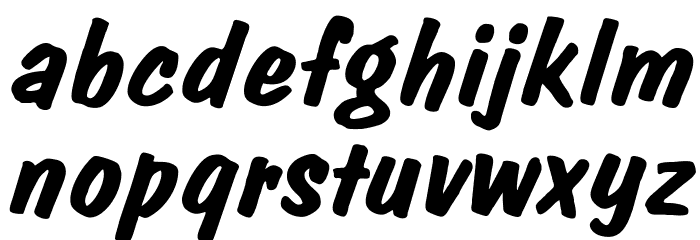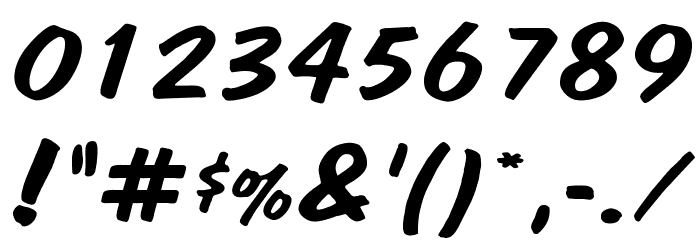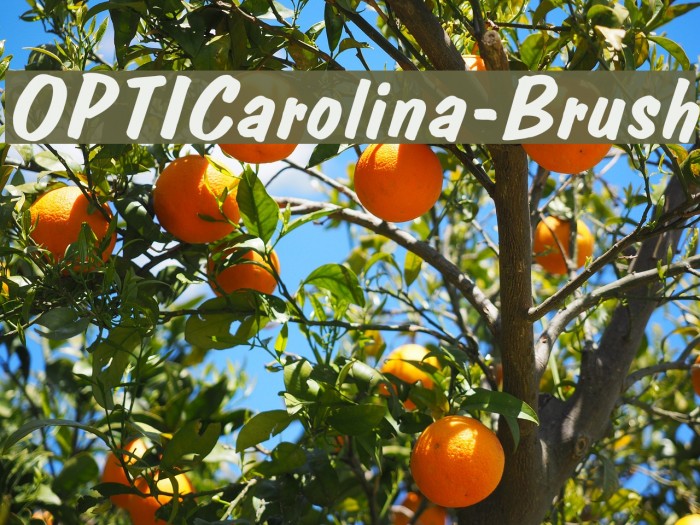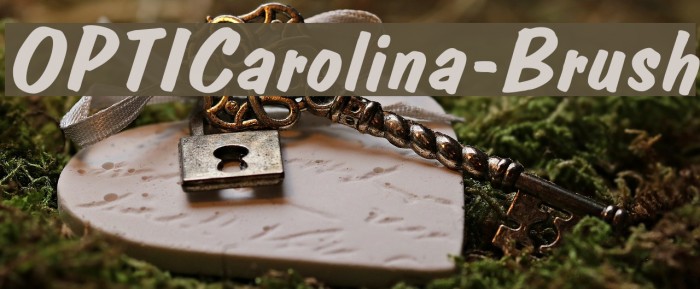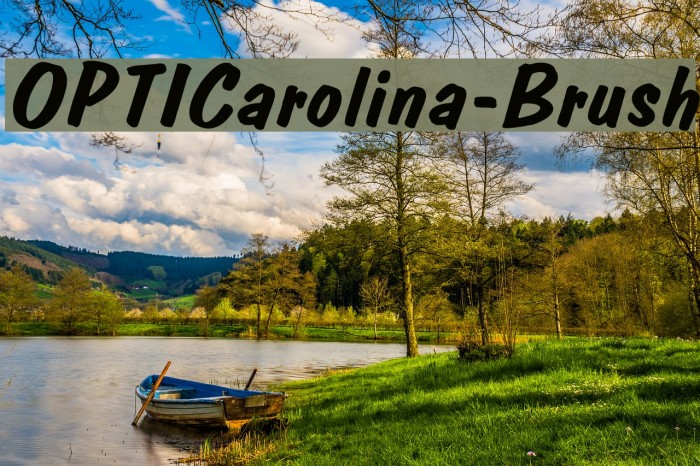
OPTICarolina-Brush Font
This font features a bold, expressive brush style that exudes energy and creativity. The letters are slightly slanted, giving a dynamic and informal appearance. The strokes are thick and consistent, providing a strong visual impact. The uppercase and lowercase letters maintain a cohesive look, with rounded edges and smooth curves. The numerals and special characters follow the same stylistic approach, ensuring uniformity across all glyphs. This font is perfect for projects that require a personal touch or a sense of movement and spontaneity.
A bold, brush-style font with dynamic, slanted characters.
- Weight: Brush
- Proposed Projects: Ideal for branding, posters, social media graphics, and creative projects that require a lively and informal touch.
- Category: Script
- Use Case: Logos, Headlines, Posters